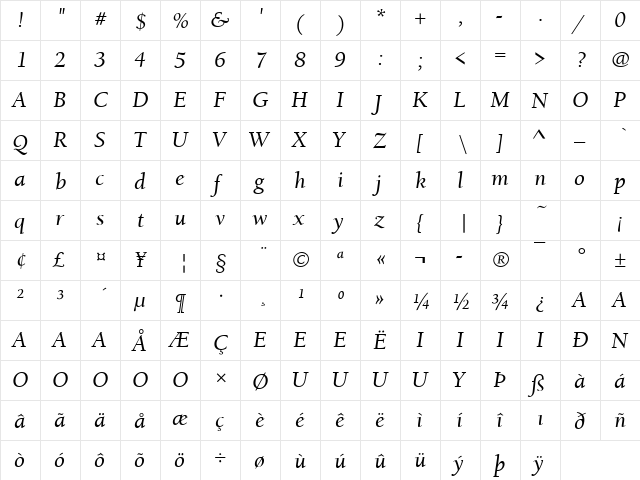
Berkeley Old Style ITC T Medium Italic Font Preview
Berkeley Old Style ITC T Medium Italic
Design Context for Berkeley Old Style ITC T Typeface
Berkeley Old Style ITC T takes a measured approach to typography — its balanced proportions and neutral character make it a reliable workhorse for both digital and print work. Its italic angle brings a sense of urgency and motion to the letterforms.
Pro Tip: Try Berkeley Old Style ITC T for annotation and caption copy alongside an upright companion — the contrast in angle creates a dynamic but ordered typographic system.